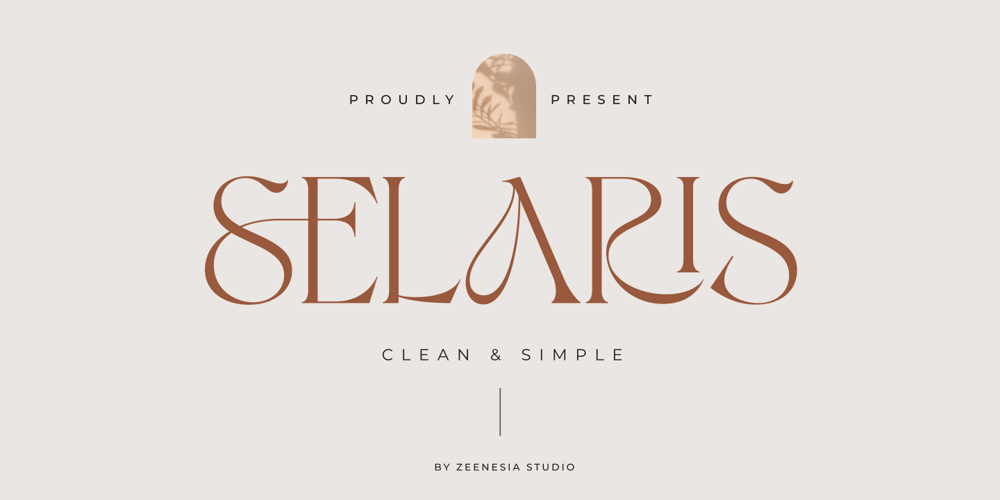
Selaris Font Family was designed by Doni Purwoko and published by Zeenesia Studio. Selaris contains 1 styles and family package options. Selaris is a beautiful and feminine serif font created by a romantic and lovely look. Selaris was built with Open Type features, stylistic Alternate and Ligature makes your project will be awesome.